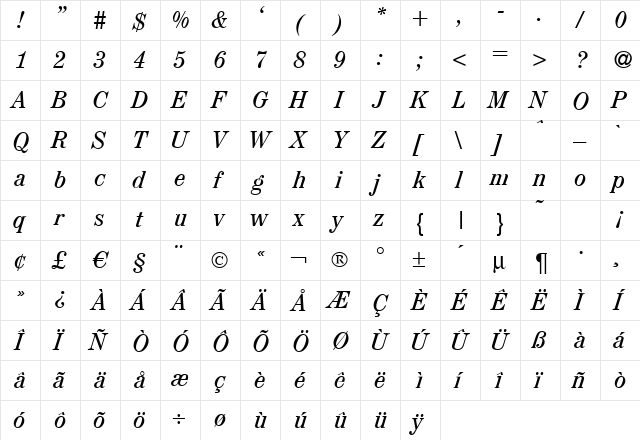
MapType Italic
Italic · SoftMaker Software GmbH SoftMaker Software GmbH ·
Foundry SoftMaker Software GmbH
DesignerSoftMaker Software GmbH
Design Context for MapType Typeface
MapType takes a measured approach to typography — its balanced proportions and neutral character make it a reliable workhorse for both digital and print work. The dynamic lean of this cut emphasises speed and emphasis in any layout.
Pro Tip: Use MapType for emphasis, pull quotes, and subheadings where its slanted energy can add rhythm to the layout.